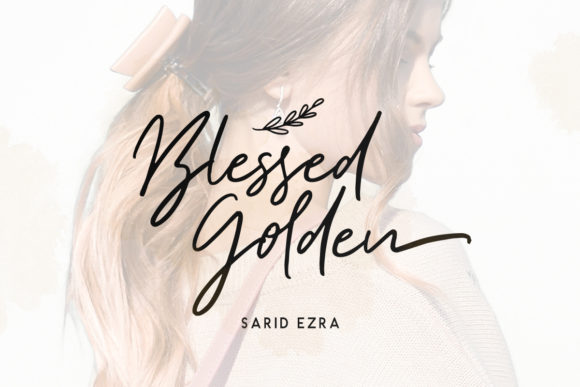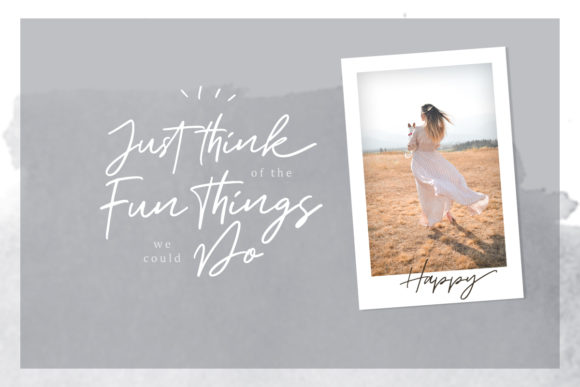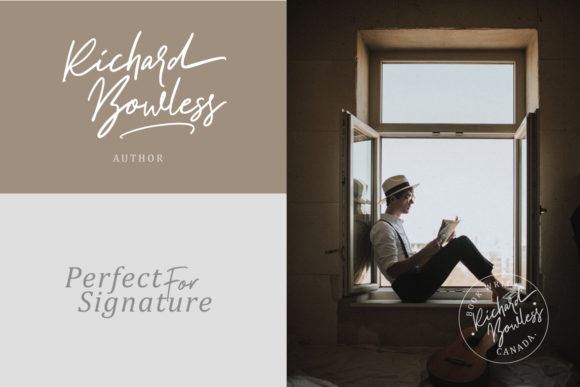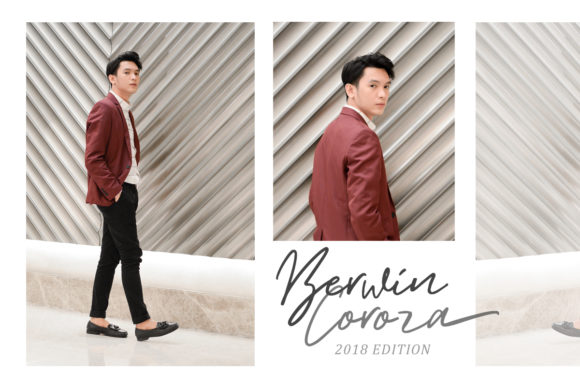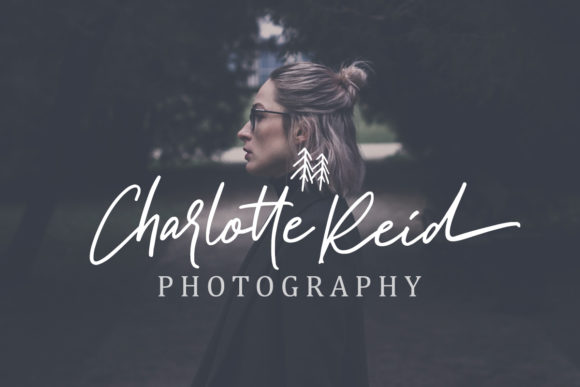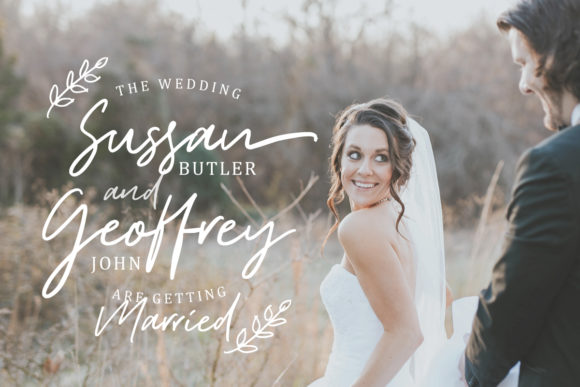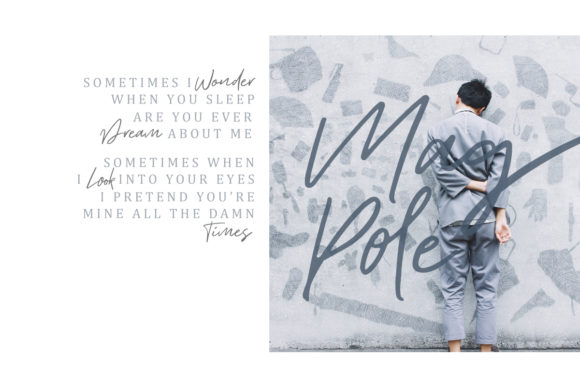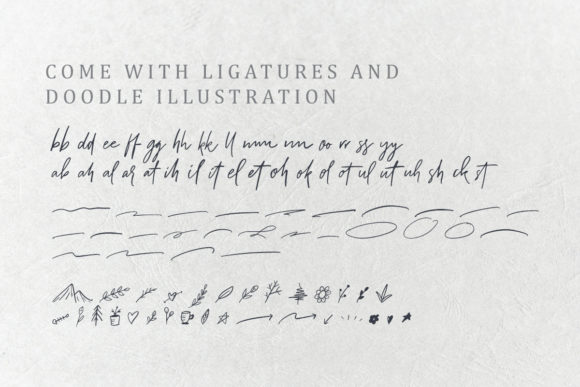
Aurelie Smith Font
About Aurelie Smith Font
The Aurelie Smith is a beautiful signature font. It includes beautiful swashes and amazing doodle illustrations.
It can be used for logos, branding, beautiful fashion designs, wedding invitations, or handwritten quotes.